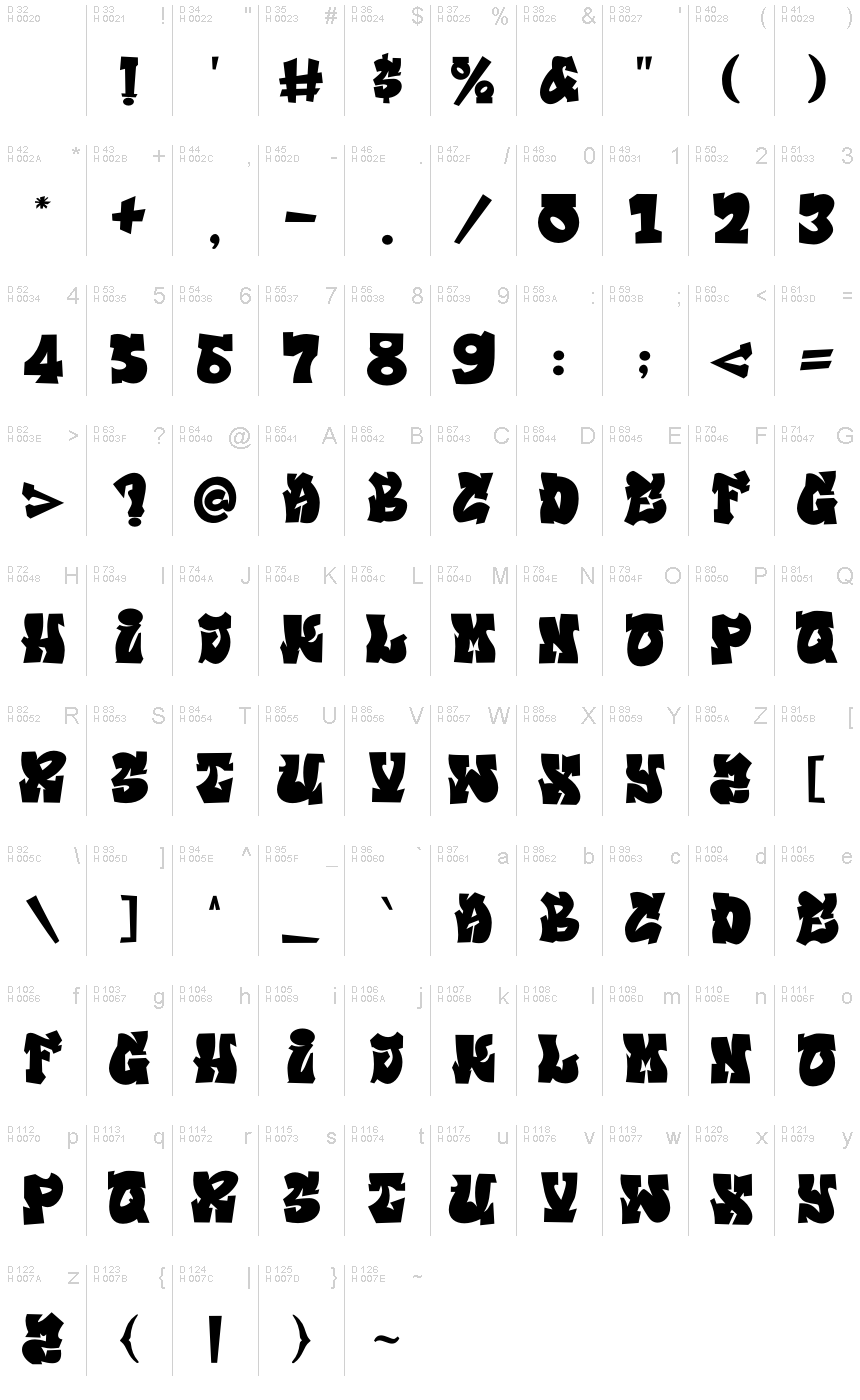
THOMAS
Thomas, a captivating graffiti-inspired font crafted by Moch Zaenal Abidin of Zaenal Studio, commands attention with its bold, dynamic strokes. Evoking a sense of urban energy and raw expression, this font's unique character shines through in its asymmetrical letterforms and impactful visual presence. The striking contrast between thick and thin lines, coupled with the subtle textures, lend an authentic, handcrafted aesthetic to any design.
The Thomas font's versatility makes it a compelling choice for a wide range of applications, from edgy branding and packaging to eye-catching headlines and titles. Its bold, attention-grabbing nature makes it well-suited for projects that aim to convey a sense of strength, rebellion, or a strong, rebellious visual identity. Whether in print or digital media, the Thomas font has the power to leave a lasting impression on audiences.